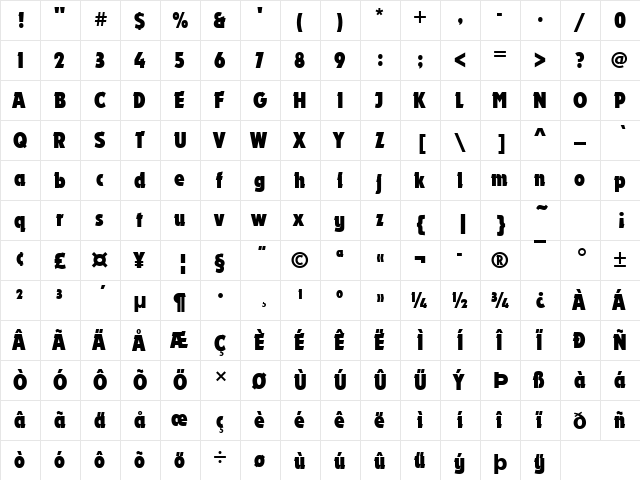
URWDyanaDBolCon Regular
URWDyanaDBolCon is a composed and adaptable typeface that performs quietly and consistently across a wide range of design contexts.